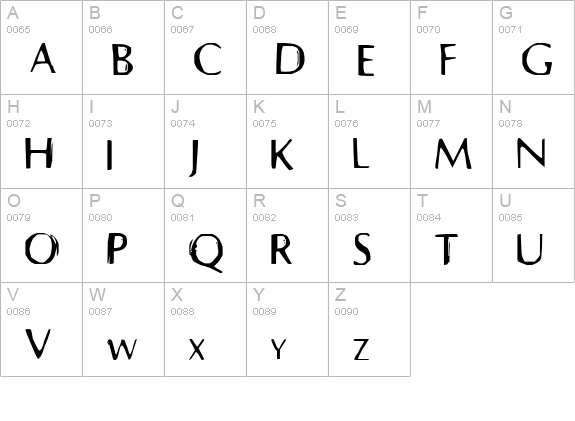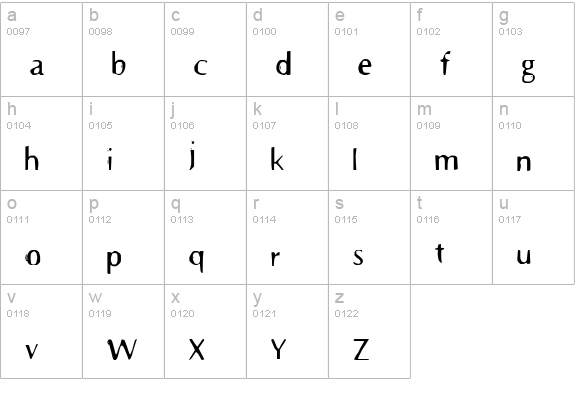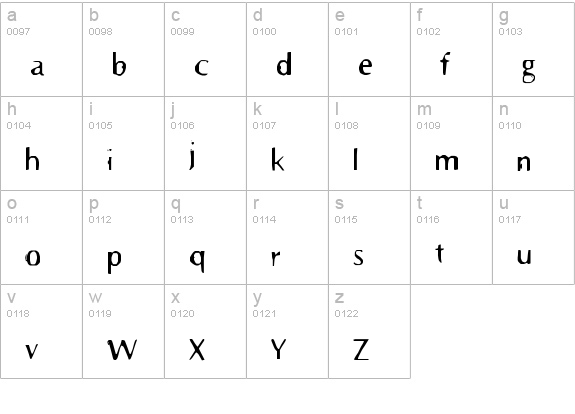
prehistoric Font Details
Transport yourself back in time to the prehistoric era with this captivating prehistoric font. Inspired by ancient cave drawings and primitive inscriptions, this font exudes a sense of mystery and wonder. Its rugged, weathered appearance adds an authentic touch to any design project, evoking a sense of history and antiquity. But the best part? This prehistoric font is completely free to download at FontsMarket.com. Now you can add a touch of ancient charm to your projects without breaking the bank. Don't miss out on this unique and versatile font - download it today and let your creativity run wild!